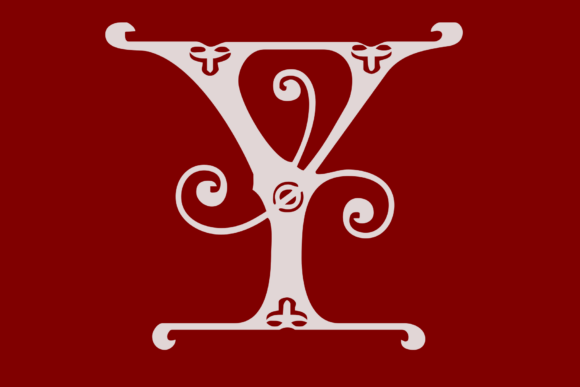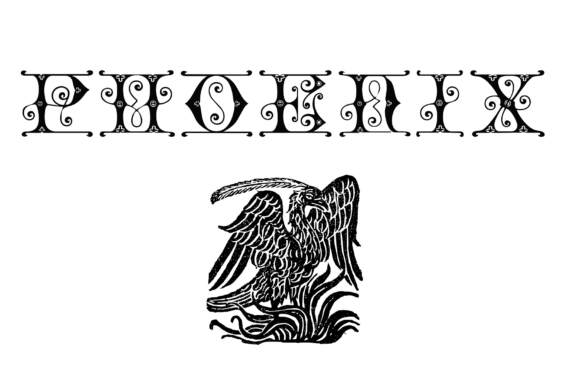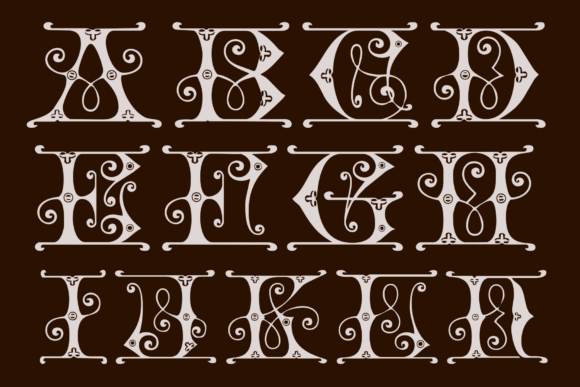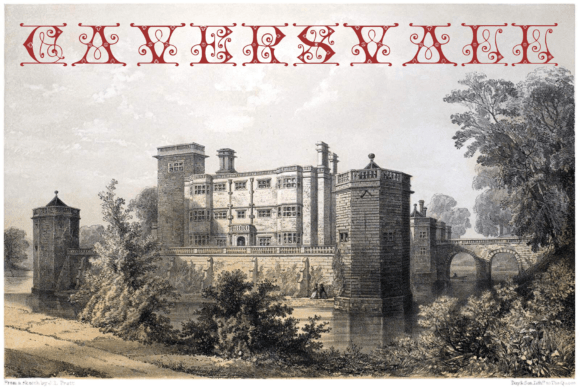
Cleo Font: A Timeless Elegance Inspired by Medieval Art
In the realm of typography, few fonts evoke the essence of medieval grandeur as effectively as the Cleo Font. This decorative typeface, inspired by the Lombardic style prevalent in medieval art, offers a unique blend of elegance and sophistication. Characterized by its bold, elegant letters adorned with unique curves and flourishes, Cleo Font is an excellent choice for designers and crafters seeking to imbue their projects with an old-world, fancy aesthetic.
The Origins of Cleo Font
The Cleo Font draws its inspiration from the Lombardic style, a type of medieval script that originated in the Lombardy region of Italy. This style is renowned for its intricate and ornate letterforms, which were often used in illuminated manuscripts and other artworks of the period. The Lombardic script is distinguished by its flowing curves, dramatic flourishes, and a sense of opulence that reflects the artistic and cultural values of the medieval era.
Design Characteristics of Cleo Font
Cleo Font embodies the spirit of the Lombardic style with its distinctive design characteristics. The font features:
- Bold and Elegant Letters: Each letter in the Cleo Font is designed with a bold presence, making it perfect for headings, titles, and any text that needs to stand out.
- Unique Curves and Flourishes: The font is adorned with intricate curves and flourishes that add an element of sophistication and elegance. These decorative elements are reminiscent of traditional calligraphy and medieval manuscript art.
- Old-World Charm: The overall appearance of the Cleo Font is deeply rooted in medieval aesthetics, providing a classic look that can add a touch of historical authenticity to any design.
Uses of Cleo Font
The versatility of the Cleo Font makes it suitable for a wide range of applications, including:
- Graphic Design: Ideal for creating visually striking posters, flyers, and brochures that require a touch of elegance and sophistication.
- Wedding and Event Stationery: The font’s classic and romantic appearance makes it a popular choice for wedding invitations, menus, and other event-related materials.
- Branding and Packaging: For businesses looking to convey a sense of tradition, luxury, and quality, Cleo Font can be an effective typographic choice.
- Crafting and DIY Projects: Crafters and DIY enthusiasts can use Cleo Font for various projects, such as hand-lettering, stenciling, and decorative painting, to add a vintage and personalized touch.
Tips for Using Cleo Font Effectively
To maximize the impact of the Cleo Font in your designs, consider the following tips:
- Pair with Simple Fonts: For optimal readability, pair Cleo Font with simpler fonts for body text. This contrast will help highlight the decorative nature of Cleo while maintaining clarity.
- Adjust Size and Color: Experiment with different sizes and colors to emphasize certain words or phrases. The bold nature of Cleo Font allows it to remain legible even at larger sizes.
- Emphasize Flourishes: Take advantage of the font’s unique flourishes by allowing them to extend into margins or interact with other design elements, adding a dynamic feel to your work.
Cleo Font offers a unique opportunity to infuse designs with a sense of medieval elegance and sophistication. Its bold, elegant letters and distinctive flourishes make it an excellent choice for a variety of projects, from graphic design and branding to crafting and DIY. By understanding the origins and characteristics of Cleo Font, and by applying it thoughtfully in design, creators can achieve a timeless aesthetic that captivates and delights audiences.